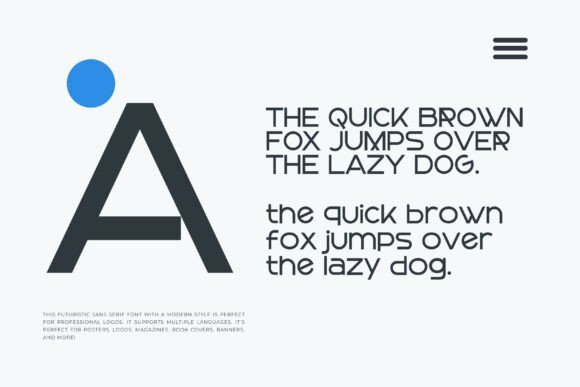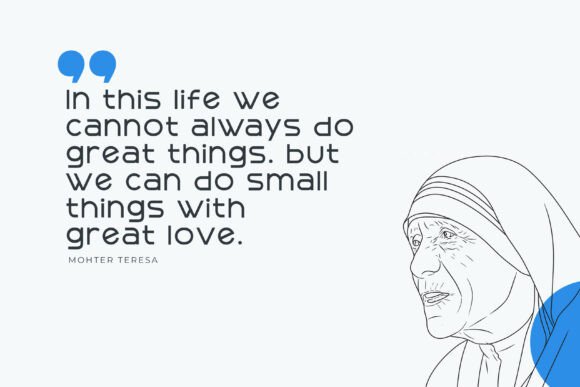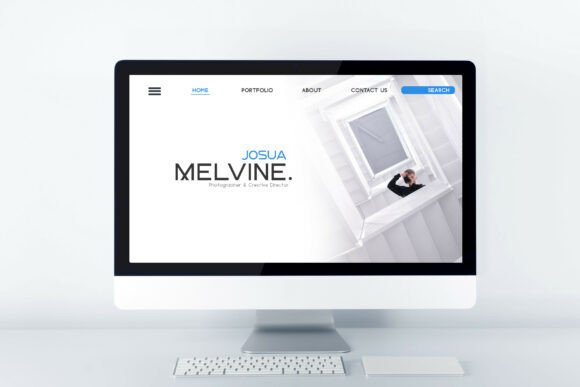
Introduction to Gunken Font
Gunken is a clean and modern sans-serif font.
The smooth and light execution makes this font look sleek and elegant which is perfect for futuristic branding designs It can easily be matched to an incredibly large set of projects, so add it to your creative ideas and notice how it makes them stand out.
Gunken Font offers exceptional quality and versatility, making it a valuable addition to your design toolkit. Whether you’re creating for personal projects or commercial use, Gunken Font delivers professional results.